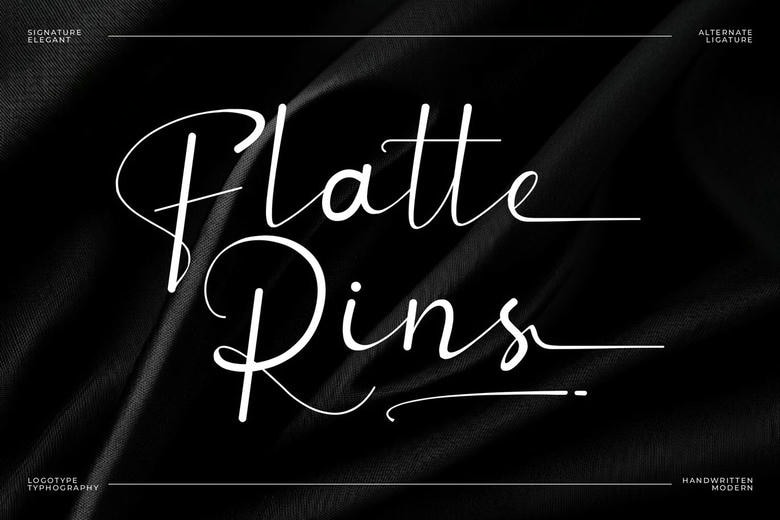
Flatte Rins Font
Flatte Rins script Font is a stylish and sophisticated font type in all the brandings and logos. This is a beautiful Serif font that is elegant and classy. It can be used in the invitation card designs, cool logos, movie titles, movie names, business cards, book titles, brand names, and other designs.
Flatte Rins script is a serif font that is smooth and has a highly sophisticated and momentous flair. This font is a stylish ligature and therefore ideal when partners with any project.
Flatte Rins Handwritten Script Font